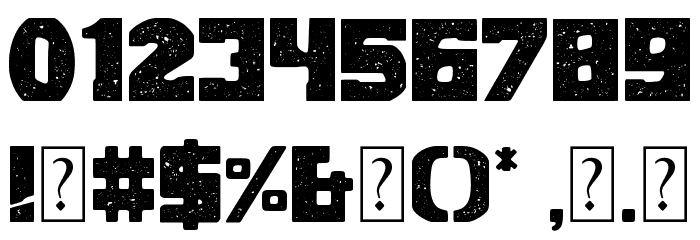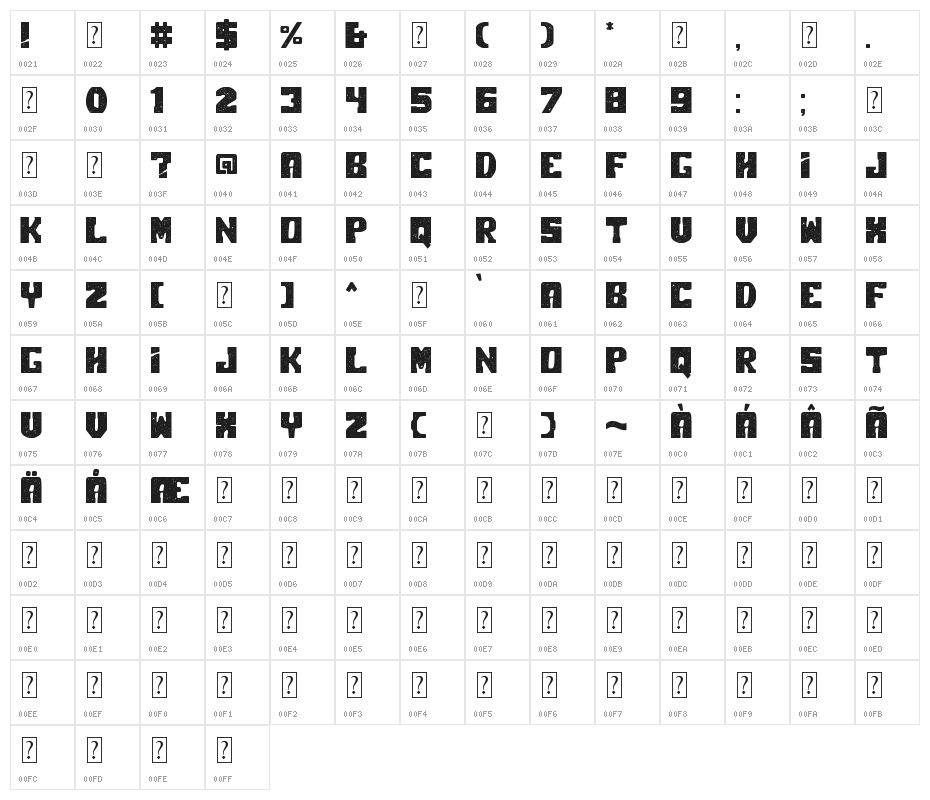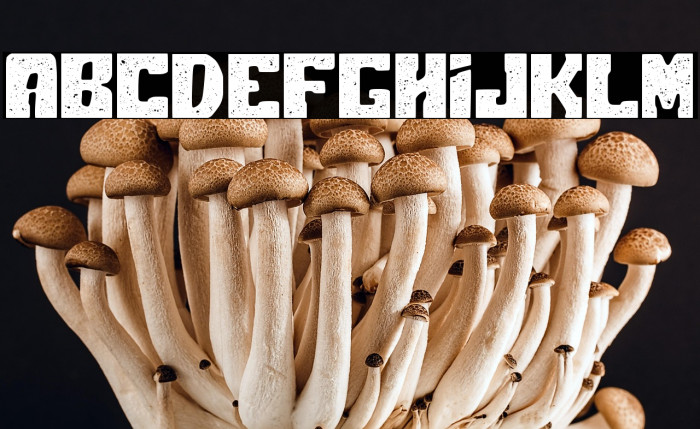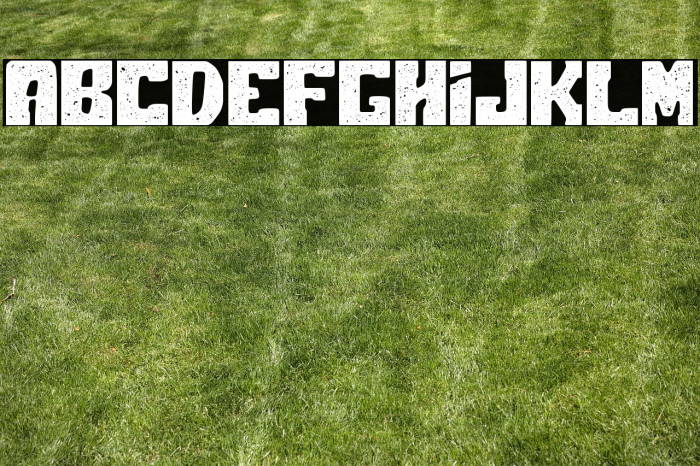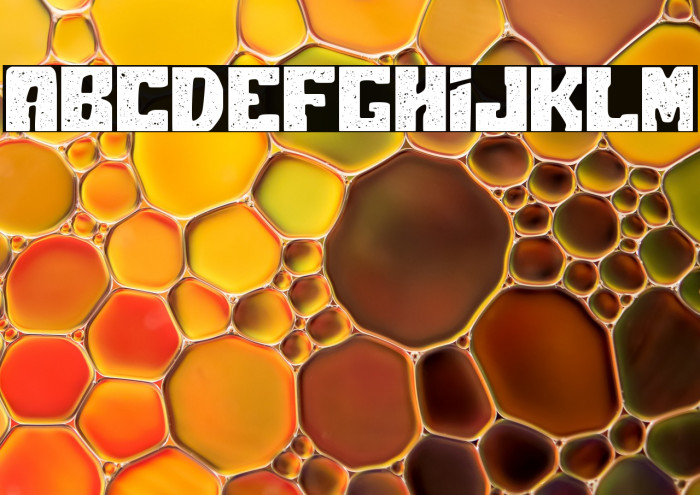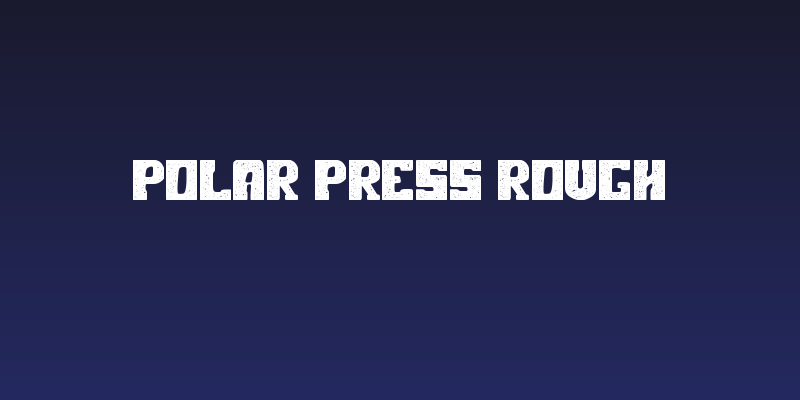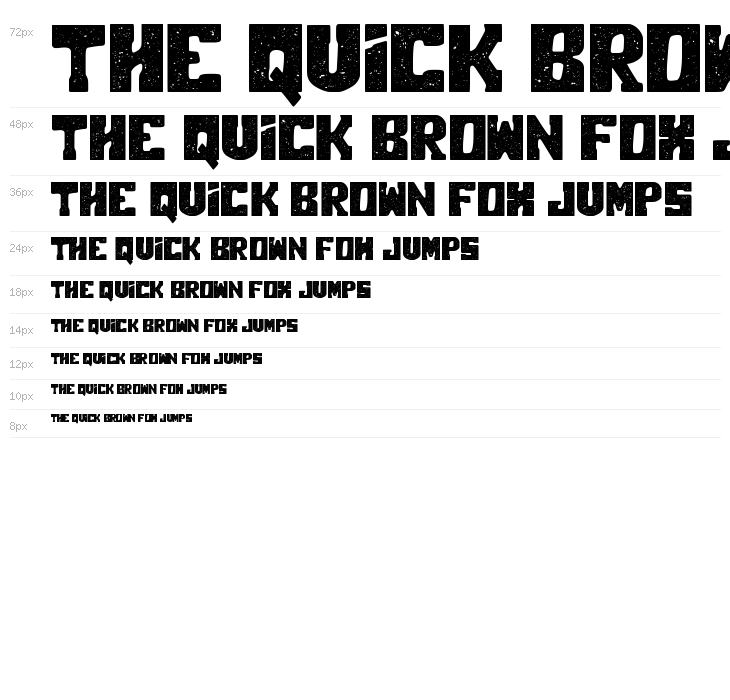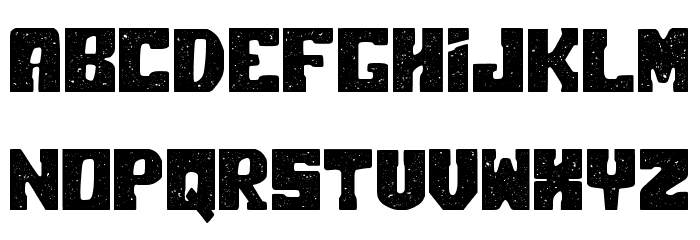
Polar Press Rough Font
Polar Press Rough Description
This font features a bold, blocky design with a rough, textured appearance that gives it a distressed, vintage feel. The characters are uniformly wide, with a consistent height that creates a strong visual impact. The texture within each letter resembles a speckled pattern, adding depth and character to the overall look. The uppercase letters are particularly striking, with sharp angles and a geometric style that is both modern and retro. The numerals and special characters maintain this aesthetic, ensuring a cohesive look across all glyphs. This font is ideal for projects that require a bold statement, such as posters, headlines, or branding materials.
| Proposed Projects | Ideal for posters, headlines, branding, and any design requiring a bold, vintage look. |